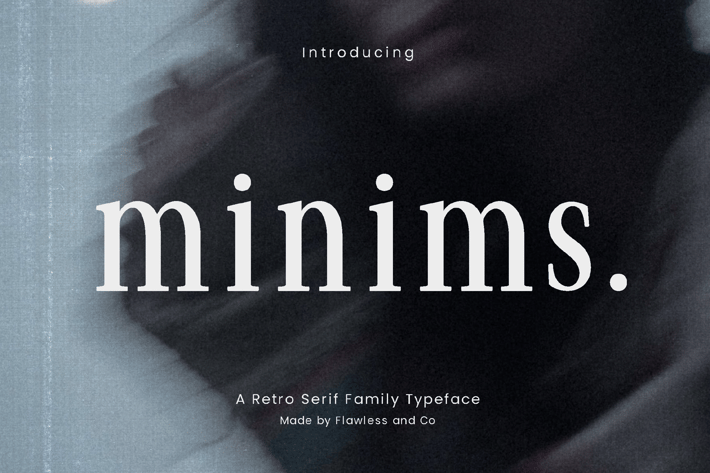
Minims Retro Serif Font Family
Introducing "Minims - Retro Serif Family Font". Dive into the diverse world of typography with "Minims", a comprehensive typeface that goes beyond conventional limits. Perfect for branding, editorial design, wedding, invitation, branding, logo, magazine, t-shirt, print, and more, Louis Walter offers versatility and elegance in every letter.